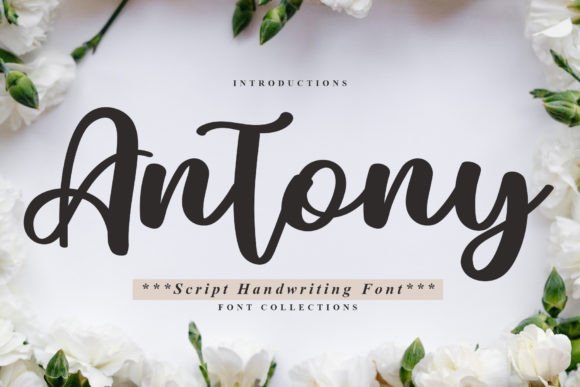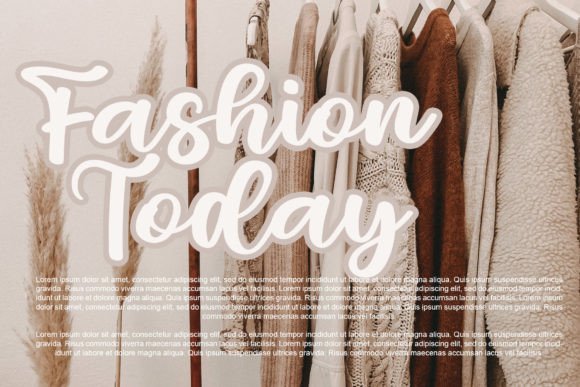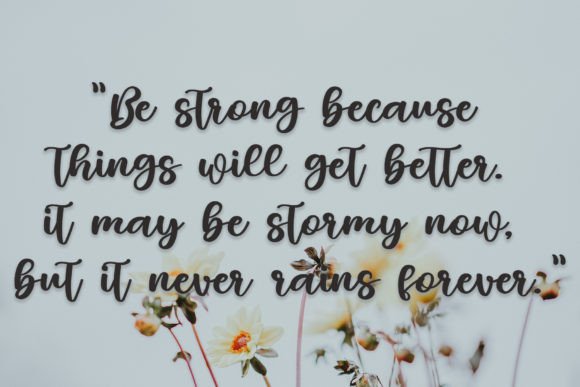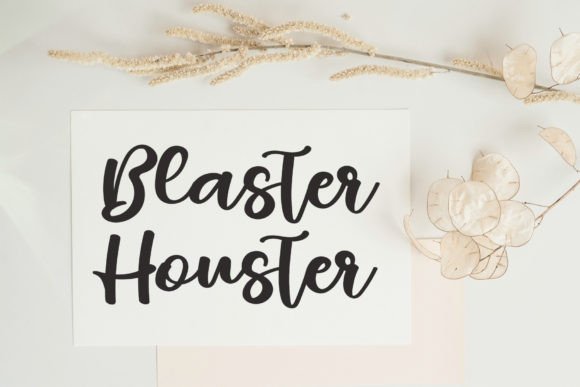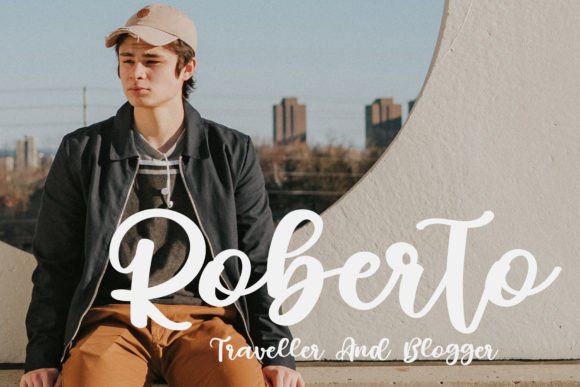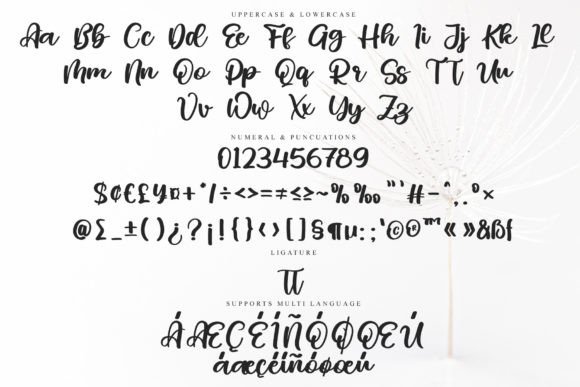
**Antony: A Playful Handwritten Font for Creative Expression**
Antony is a font that exudes a playful and handmade quality, delivering an incredibly playful handwritten style. This font is a fantastic choice to infuse a special touch of playfulness into any design idea you can imagine. Masterfully designed to become a favorite, Antony has the potential to elevate all your creative projects to new heights.
The charm of Antony lies in its handwritten characters that capture the essence of playfulness. Each letter is carefully crafted to exude a sense of creativity and authenticity. Whether you’re working on whimsical branding, fun posters, or any creative endeavor, Antony adds a playful and charming flair to your work.
This font’s versatility ensures it can adapt to various design contexts. It can be used to create eye-catching designs that demand attention, infuse creativity into branding materials, or add a touch of fun to your projects. Its playful and handmade appearance ensures your designs are both engaging and visually appealing.
In summary, Antony is more than just a font; it’s a source of playfulness and creativity that enhances your design projects. Its playful handwritten letters make it the perfect choice for infusing a sense of fun and artistic expression into your work. With Antony, your creative ideas will shine with a playful and charming touch. Choose Antony, and let your designs captivate with its playful and handmade charm.